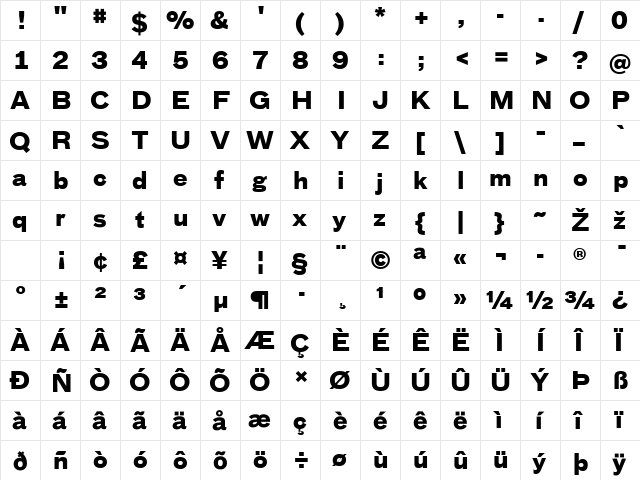
BauTF-Bold Regular
| Foundry | Christian Schwartz published by FontShop International for the FontFont Library |
| Designer | Christian Schwartz |
Design Context for BauTF-Bold Typeface
BauTF-Bold is a composed and adaptable typeface that performs quietly and consistently across a wide range of design contexts. Its bold stroke weight gives it real presence on the page.